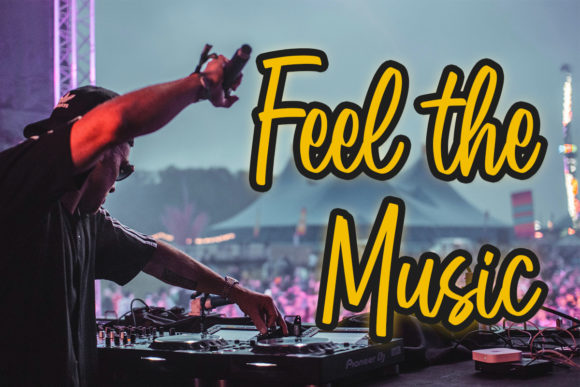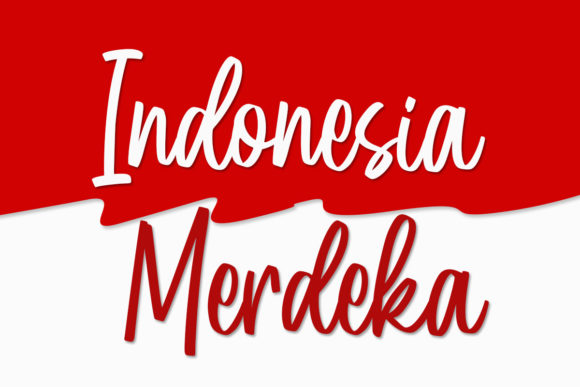
About Anjast Martha 1 Font
“Anjast Martha” emerges as a font that embodies loveliness and simplicity, poised to add an exquisite touch to your already remarkable designs. With its graceful script style, it becomes the perfect companion for infusing your creations with an element of understated elegance.
Imagine “Anjast Martha” as a gentle brushstroke that delicately enhances your designs, adding a layer of charm that resonates with the eye. Its effortless beauty and subtle allure elevate your projects, transforming them into visual gems that captivate with their simplicity. As you incorporate this font into your designs, you’ll embark on a journey where your concepts evolve into captivating visual narratives.
Beyond its visual allure, “Anjast Martha” captures an essence of authenticity and creative refinement. Its script nature adds a personal touch, turning your designs into more than just visuals – they become expressions of artistry and sophistication.
“Anjast Martha” stands as a versatile tool in your design arsenal. Its simplicity ensures seamless harmony with various styles, themes, and intentions. Whether you’re adding a delicate touch to an elegant logo, enhancing the beauty of your branding, or bringing a touch of charm to your existing designs, this font enhances the resonance of your message.
In a world where design speaks volumes through subtlety and style, “Anjast Martha” becomes your medium for crafting designs that evoke emotions and leave a lasting impact. Let its graceful script be the artistic flourish that enhances your creations, infusing them with a touch of timeless elegance. Embrace the lovely allure of “Anjast Martha” and watch as it transforms your projects into captivating showcases of artistic excellence, resonating deeply with all who engage with them.